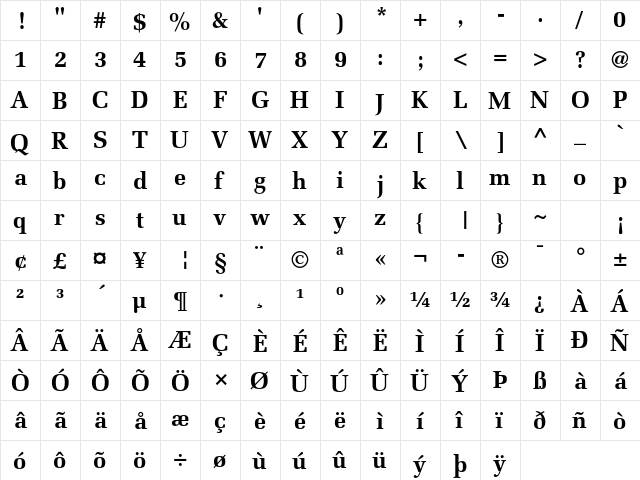
Melior LT Std Bold
| Designer | Hermann Zapf |
Design Context for Melior LT Std Typeface
Melior LT Std is a composed and adaptable typeface that performs quietly and consistently across a wide range of design contexts. The heavy weight commands attention and anchors typographic hierarchies.